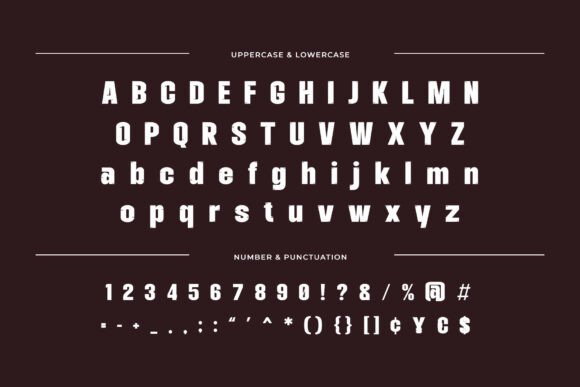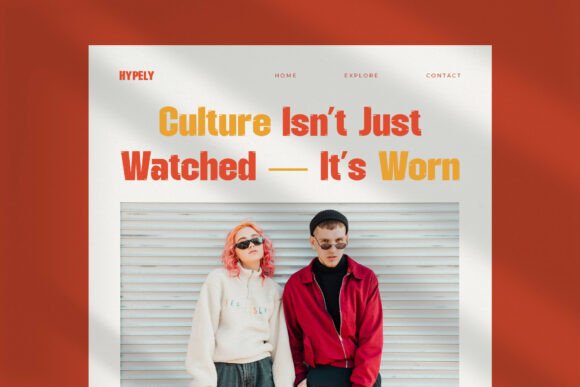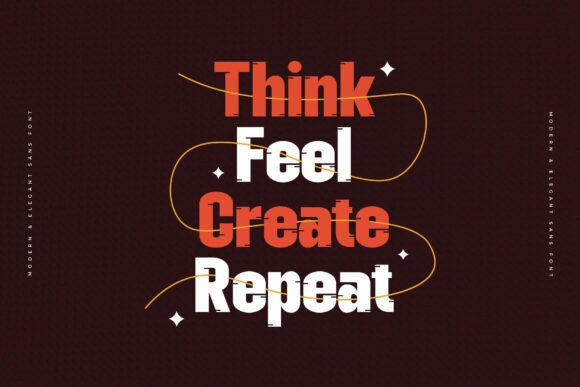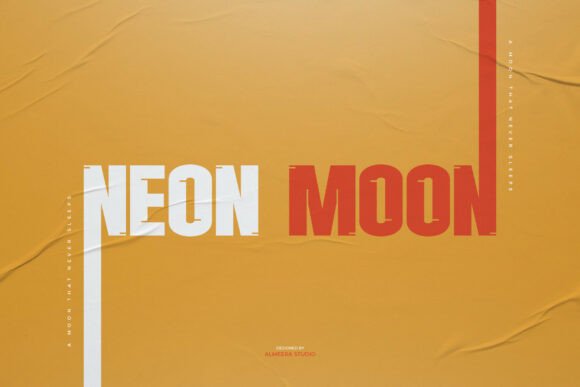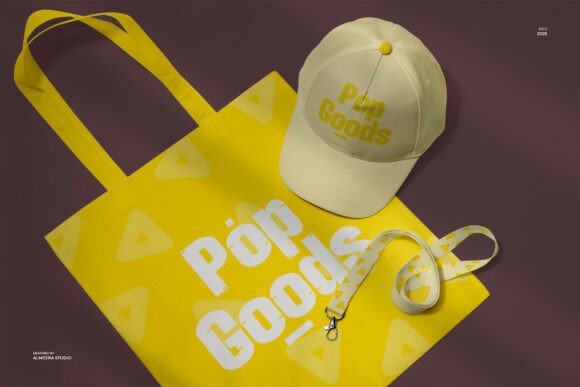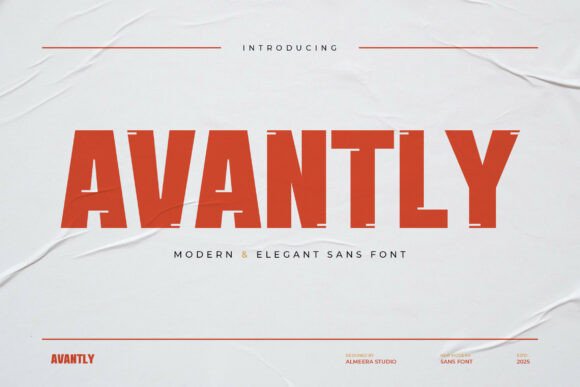
Introducing Avantly Font: Elevate Your Designs with High-Fashion Elegance
In the world of typography, fonts play a crucial role in conveying the tone and personality of a brand or design. For designers and crafters seeking to add a touch of luxury and sophistication to their work, Avantly Font is an exceptional choice. This high-fashion sans-serif display font boasts refined curves and a distinct modern edge, making it perfect for editorial spreads, magazine titles, and luxury branding.
The Essence of Avantly Font
Avantly Font is designed to command attention while maintaining an elegantly understated demeanor. Its unique blend of refined curves and sharp lines creates a distinctive look that speaks the language of innovation and chic. This font is ideal for designers who want to add a touch of high-end style to their work, whether it’s for a fashion brand, luxury product, or editorial publication.
Key Features of Avantly Font
- High-fashion sans-serif design: Avantly Font features a sleek and modern sans-serif design, perfect for creating a sophisticated and luxurious look.
- Refined curves and distinct modern edge: The font’s refined curves and sharp lines create a unique and eye-catching appearance.
- Perfect for editorial spreads and magazine titles: Avantly Font is designed to make a statement, making it ideal for use in editorial spreads and magazine titles.
- Luxury branding: The font’s high-end style and sophistication make it perfect for luxury branding and product design.
Why Choose Avantly Font?
Avantly Font offers a range of benefits for designers and crafters, including:
- Instant recognition: The font’s unique design ensures instant recognition and attention-grabbing impact.
- Elegant and sophisticated: Avantly Font adds a touch of elegance and sophistication to any design, making it perfect for high-end brands and luxury products.
- Versatile: The font can be used in a variety of design applications, from editorial spreads to digital marketing materials.
- Easy to read: Despite its elegant and refined design, Avantly Font remains easy to read, making it perfect for body text and headlines.
How to Use Avantly Font
Avantly Font can be used in a variety of design applications, including:
- Editorial design: Use Avantly Font to create eye-catching headlines and titles for editorial spreads, magazines, and newspapers.
- Luxury branding: Add a touch of high-end style to your luxury brand with Avantly Font, perfect for logos, packaging, and marketing materials.
- Digital marketing: Use Avantly Font to create stunning digital marketing materials, including social media graphics, email headers, and website titles.
Tips for Pairing Avantly Font
To get the most out of Avantly Font, consider pairing it with other fonts that complement its elegant and sophisticated style. Some tips for pairing Avantly Font include:
- Pair with serif fonts: Pair Avantly Font with serif fonts for a classic and sophisticated look.
- Use with script fonts: Combine Avantly Font with script fonts for a touch of elegance and whimsy.
- Experiment with font sizes: Play with font sizes to create visual interest and hierarchy in your design.
Avantly Font is an exceptional choice for designers and crafters seeking to add a touch of luxury and sophistication to their work. With its high-fashion sans-serif design, refined curves, and distinct modern edge, this font is perfect for editorial spreads, magazine titles, and luxury branding. Whether you’re looking to create instant recognition, add elegance and sophistication, or simply want a versatile font for a range of design applications, Avantly Font is an excellent choice.